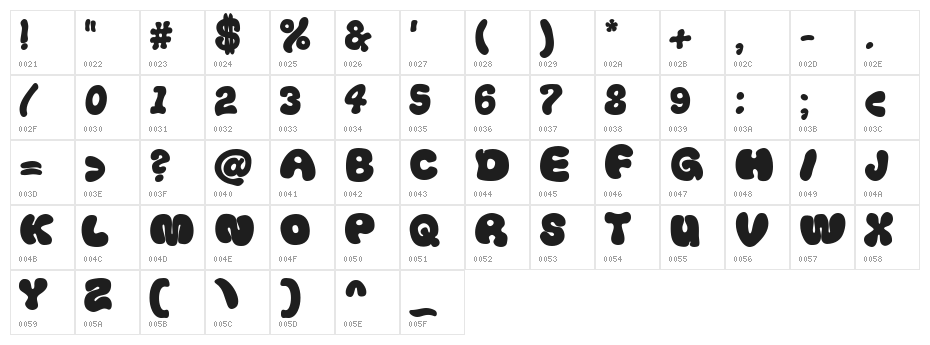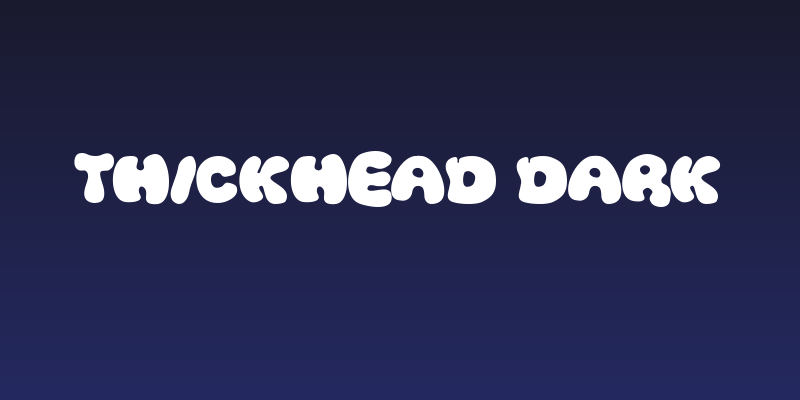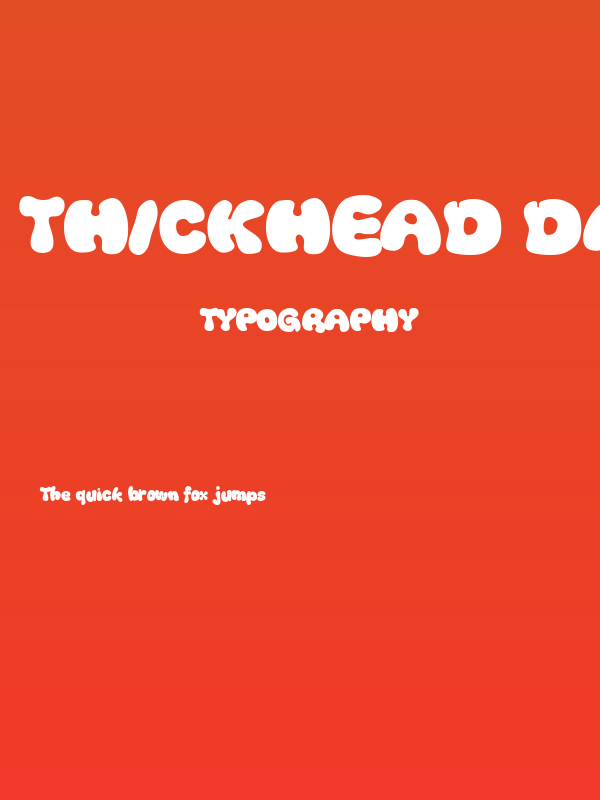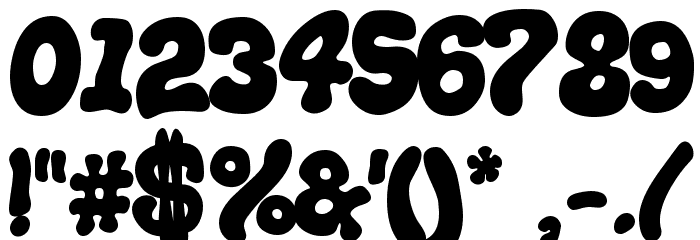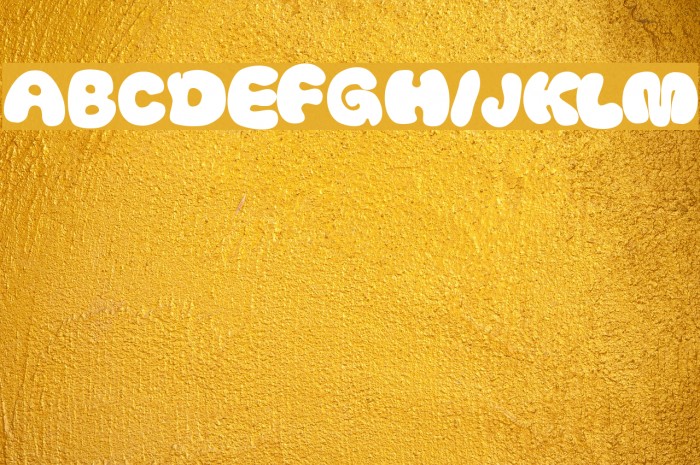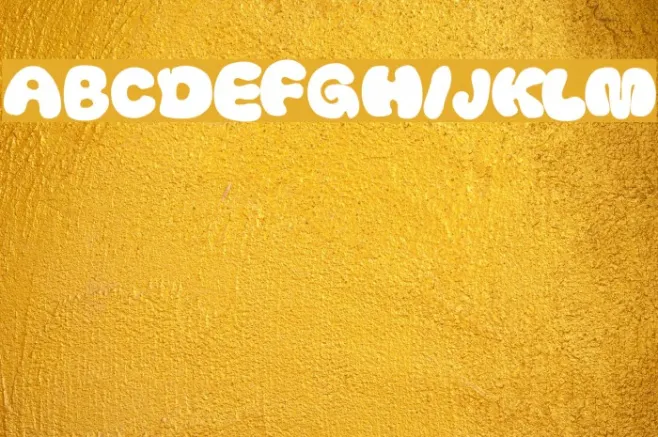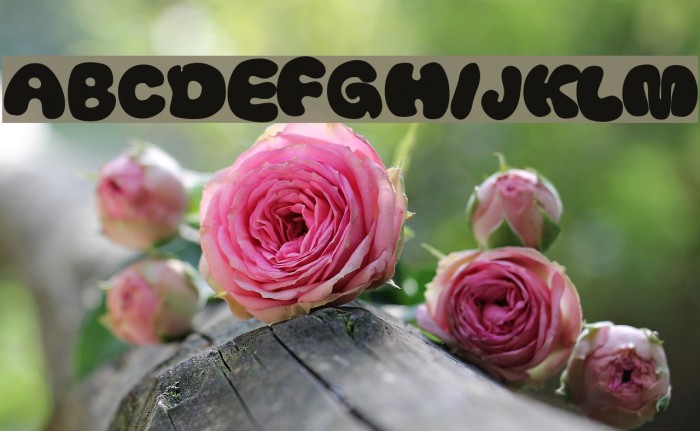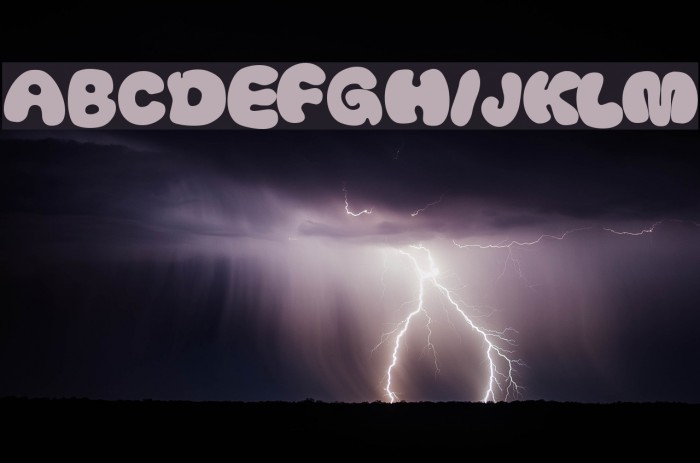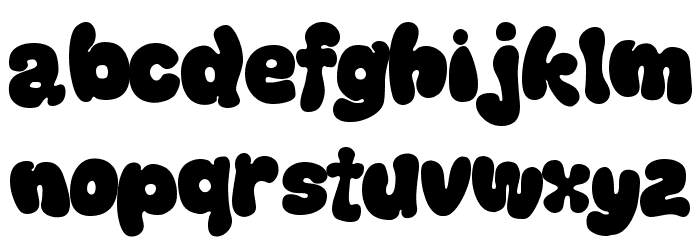
Thickhead Dark Font
Thickhead Dark Description
This font features a bold and playful design with thick, rounded characters that convey a sense of fun and creativity. The letters are heavily weighted, giving them a strong presence, while the rounded edges add a soft, approachable feel. The font maintains a consistent thickness throughout, with minimal contrast in stroke width, creating a uniform appearance. Its whimsical style makes it ideal for projects that aim to capture attention and convey a lively, energetic vibe. The characters are closely spaced, enhancing the boldness and making it suitable for impactful headlines or titles.
| Proposed Projects | Ideal for children's books, playful branding, party invitations, and eye-catching headlines. |